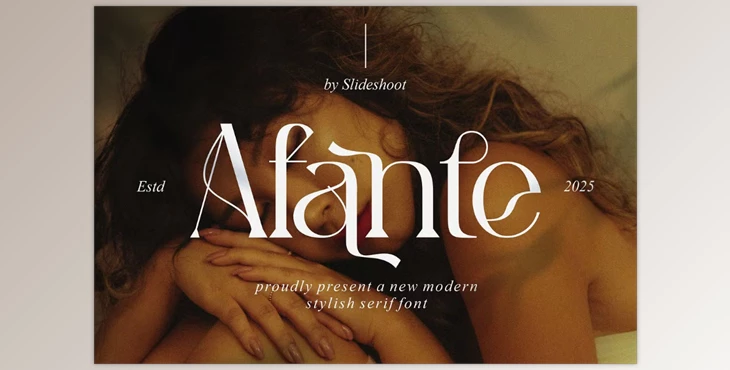
Afante || Modern Stylish Serif Font:
Afante typeface is feminine and modern serif font with a graceful touch. The uniqueness of this typeface makes it perfect for various designs such as wedding invitations, company logos, movie titles, business cards, book covers, and brand identity designs. This also means that the Afante font can be used in personal and business designs, making it extremely useful.
Some great features of Afante || Modern Stylish Serif Font:
- Supports uppercase, lowercase, digits, and punctuation marks.